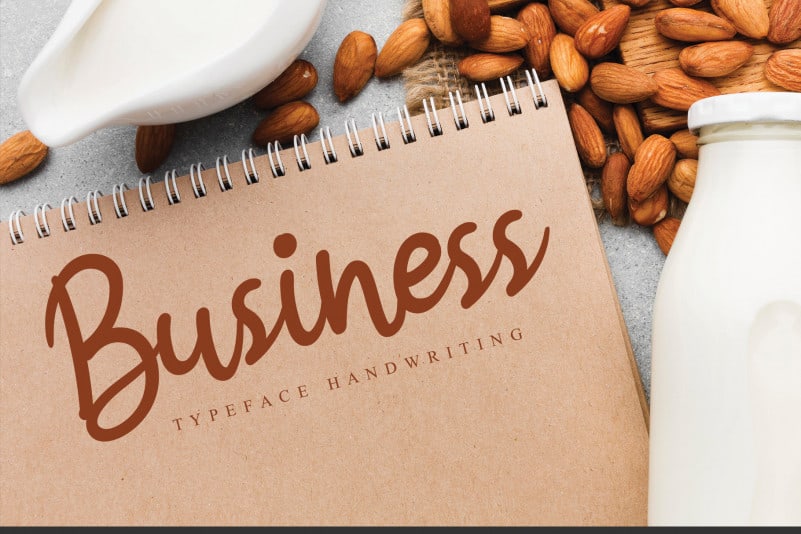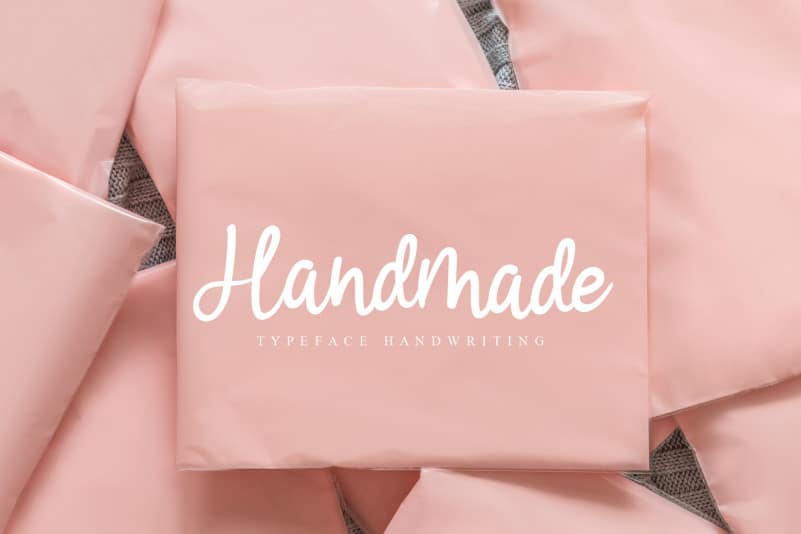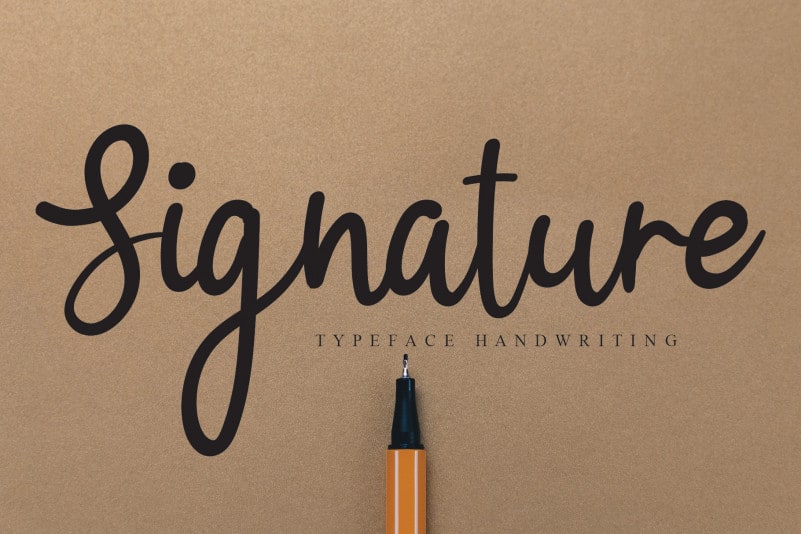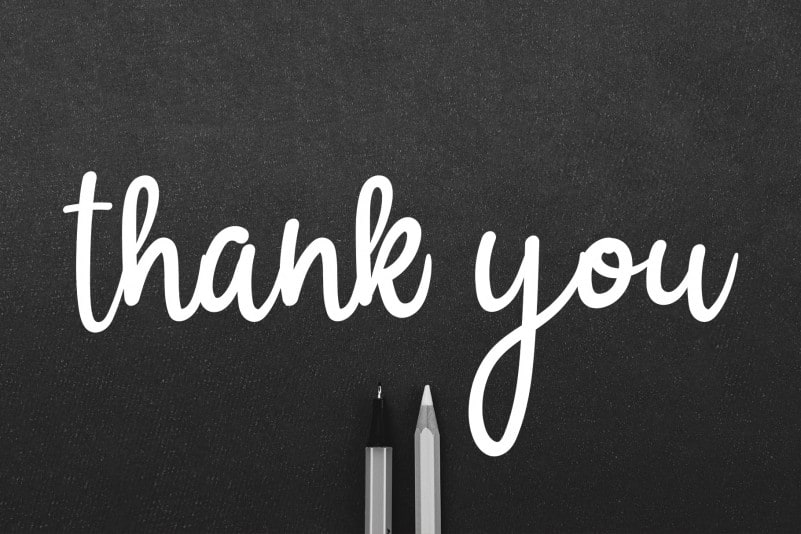
Hallimun Flower Script Font
Hallimun Flower Script Font is a delicate and elegant handwritten font. Its distinct and well rounded letters make this font a masterpiece. Fall in love with its incredibly versatile style and use it to create spectacular designs!